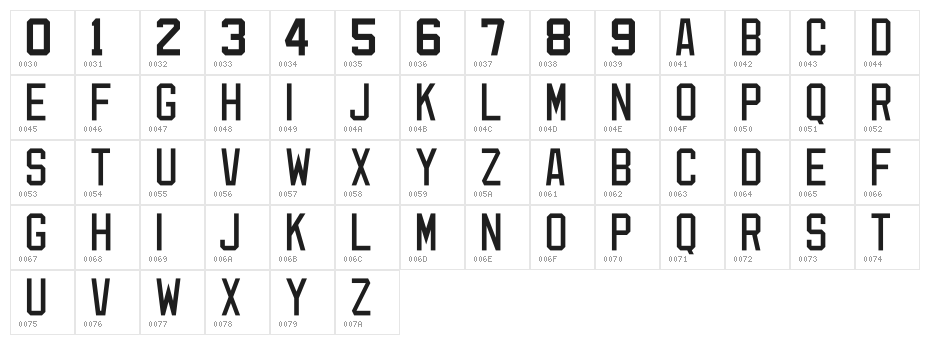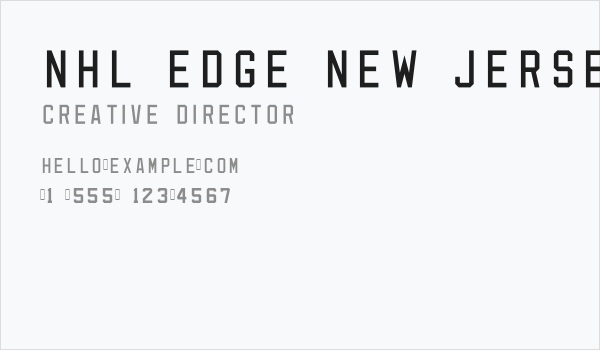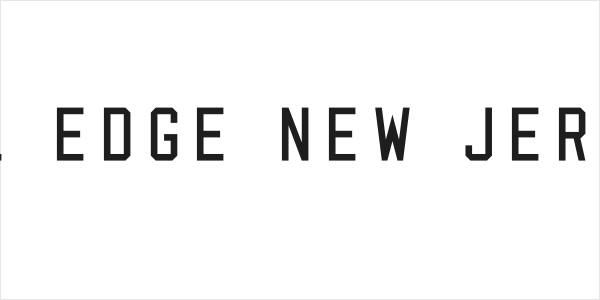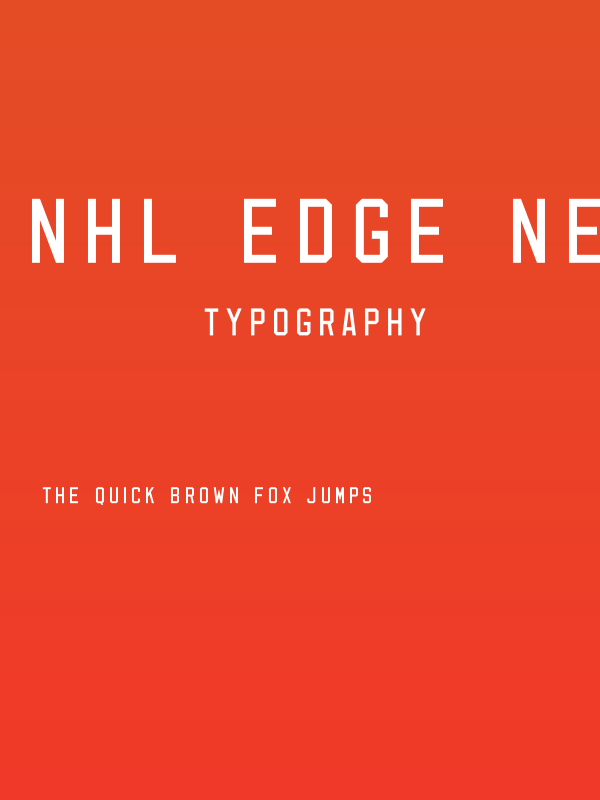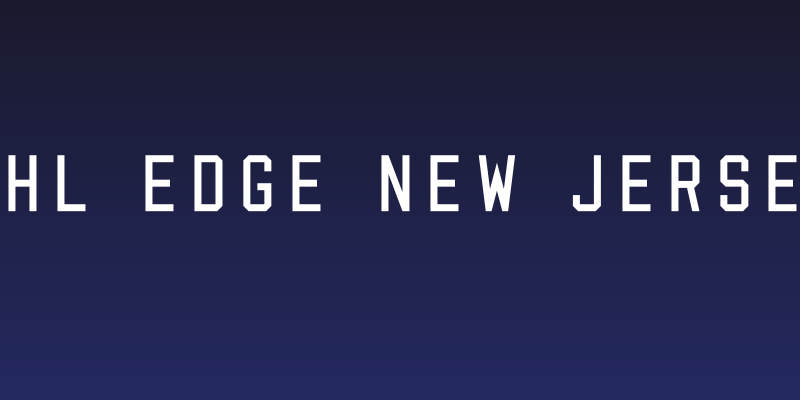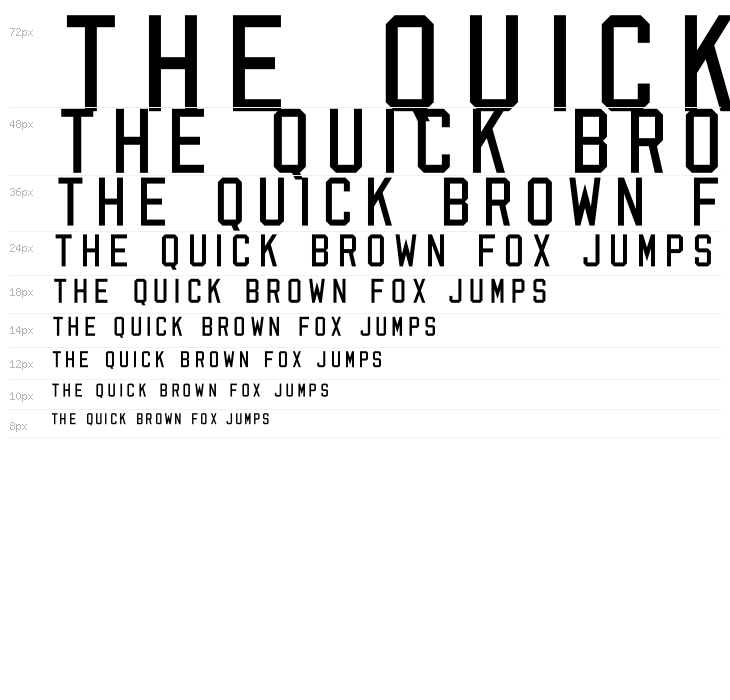
NHL Edge New Jersey Font
NHL Edge New Jersey Description
This font features a bold, geometric design with a strong presence. The uppercase letters are uniform in height and width, creating a cohesive and structured appearance. The numbers are similarly bold and geometric, maintaining the font's overall aesthetic. The characters have a slightly condensed form, giving them a compact and efficient look. The font's style is modern and assertive, making it suitable for projects that require a strong visual impact. The absence of curves and the presence of sharp angles contribute to its contemporary and edgy feel.
| Proposed Projects | Ideal for sports team branding, merchandise, posters, and signage that require a strong and impactful visual presence. |